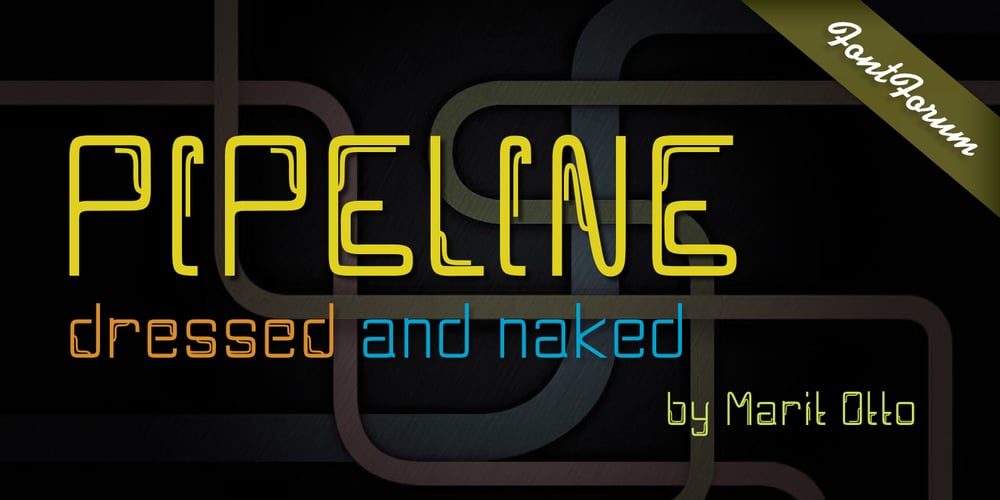
Pipeline Font Family was designed by Marit Angenita Otto and published by URW Type Foundry. Pipeline contains 2 styles and family package options. Pipeline is a futuristic and technical looking typeface. But as the name suggest it’s also earthly, (literally). Deep down underneath villages, city’s everywhere and even oceans there’s a network of pipelines. Providing us all sorts of supplies, like water and oil. Sewers wash fluid waste away. They are never to be looked upon as pretty or beautiful but purely functional. The soil peeled off and looked upon from above, a greater industrial infrastructure is revealed, cluttered like spaghetti, complex as the maze of corridors of termite colonies. I present two pipelines to you; one naked and one dressed. This typeface is very suitable for graphic, logo and poster design. It is quadratic shaped with round curves. It is modern and classic at the same time. It could be appealing for young, technical, digital, inventive and urban (sub) culture (at any age).